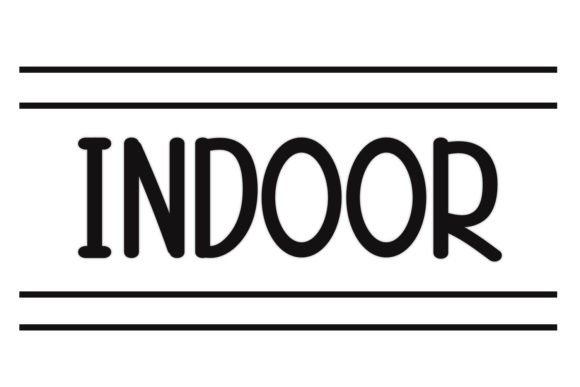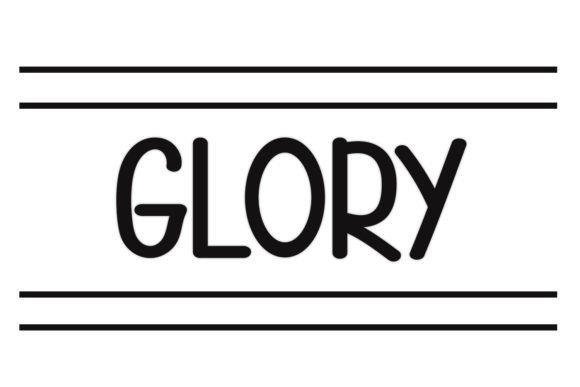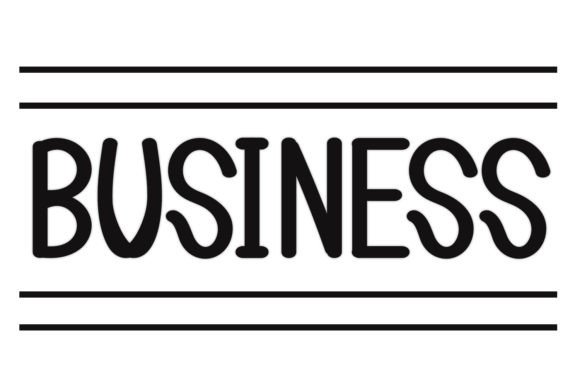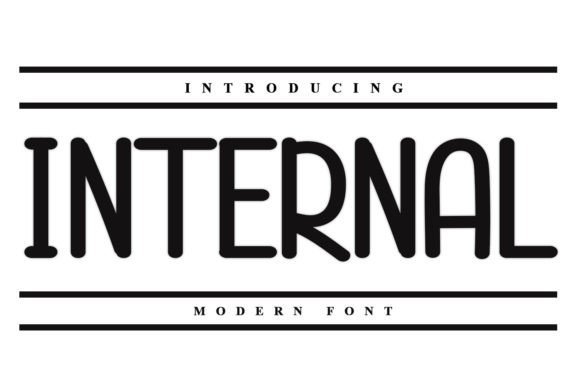
Introduction to Internal Font
Internal is a fresh and beautiful font, good for your design purposes such as Youtube banners, cover logo mockups, wedding invitations, ID Cards, flyersr, crafts and more.
Key Features of Internal Font
Why Choose Internal Font?
Internal Font offers exceptional quality and versatility, making it a valuable addition to your design toolkit. Whether you’re creating for personal projects or commercial use, Internal Font delivers professional results.